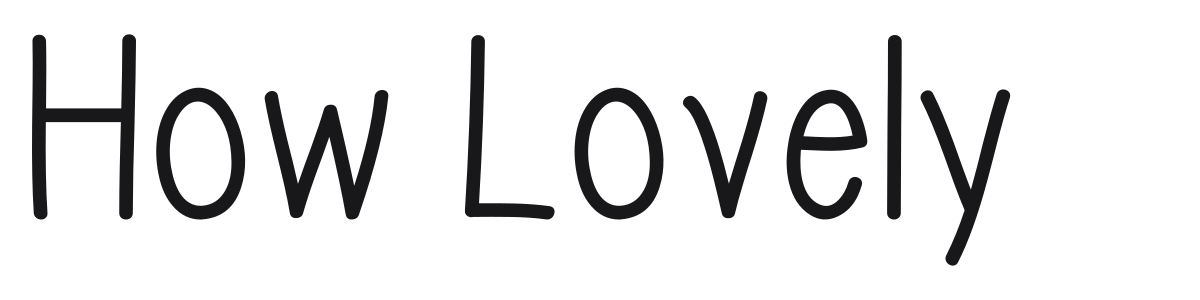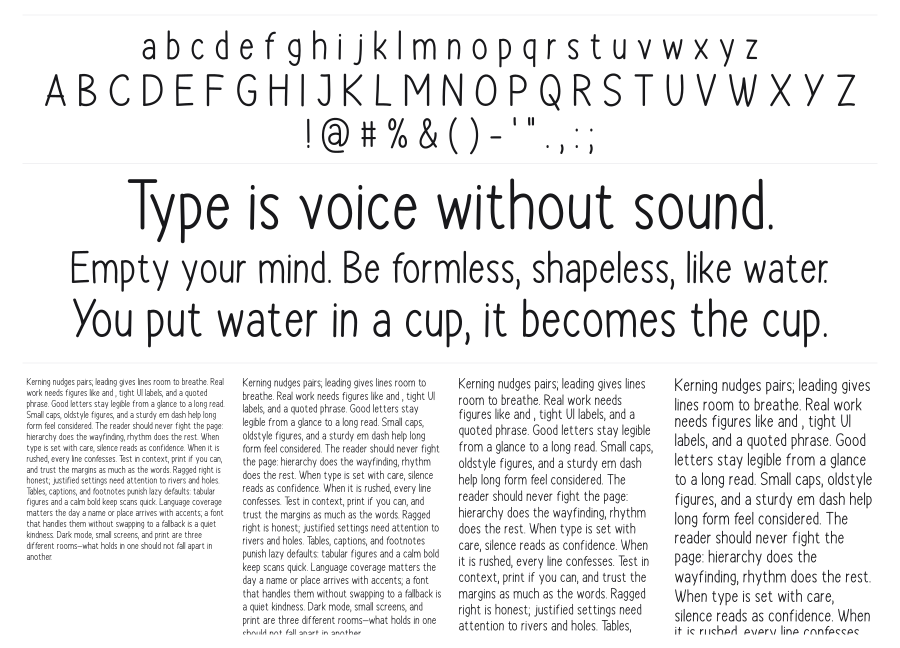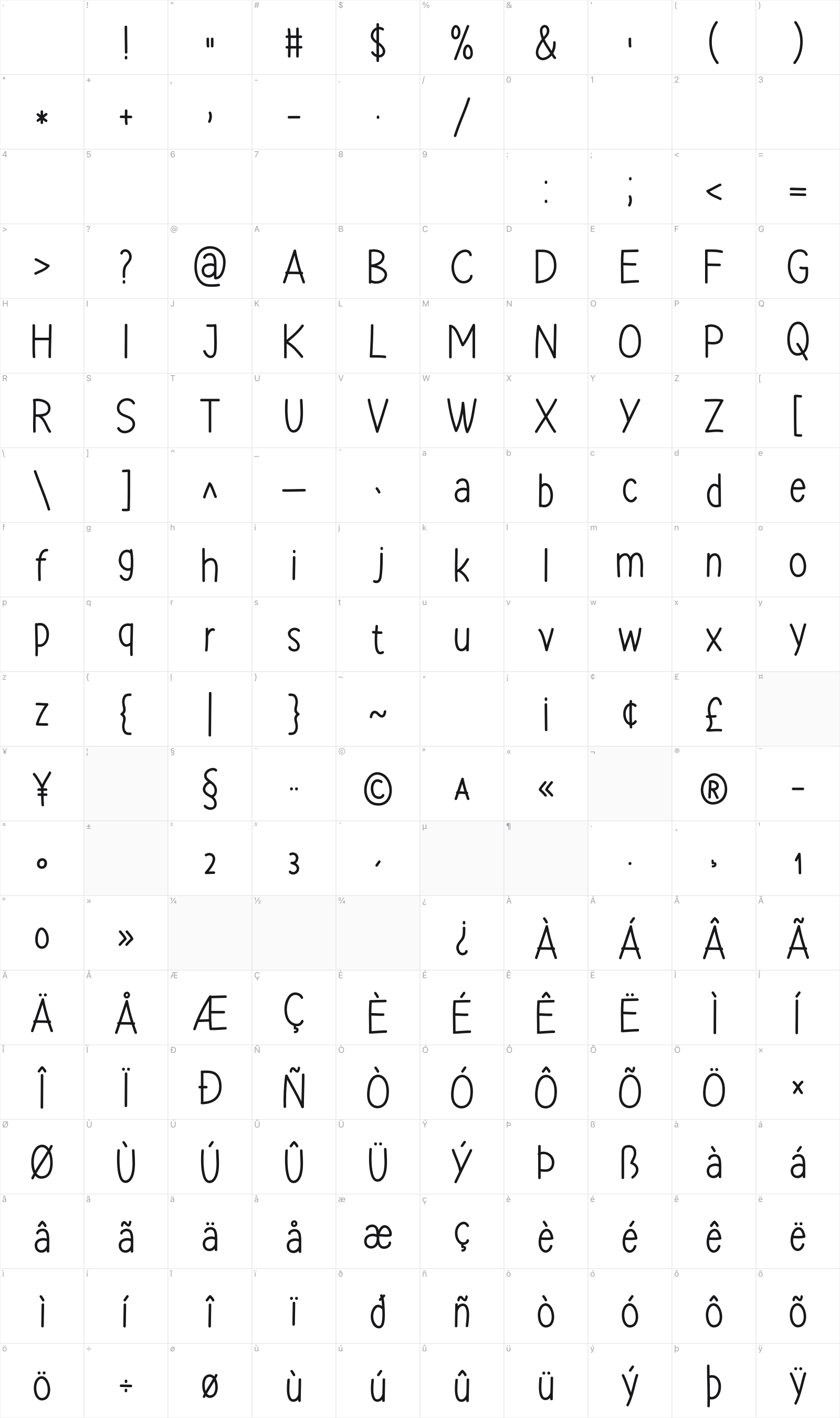
How Lovely
How Lovely is a light humanist sans with softly rounded terminals and a gently hand-influenced stroke. The variable, organic quality of the letter endings keeps it from feeling mechanical, lending it a casual warmth that works naturally in lifestyle branding, packaging, and editorial headlines. It reads as relaxed without being sloppy.